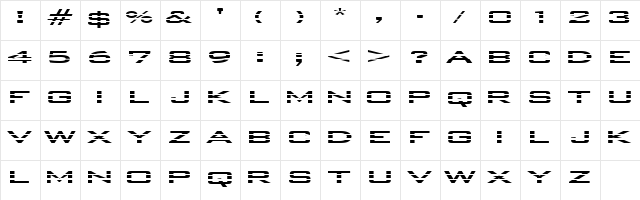
Nasa 1
Design Context for Nasa Typeface
Nasa takes a measured approach to typography — its balanced proportions and neutral character make it a reliable workhorse for both digital and print work.